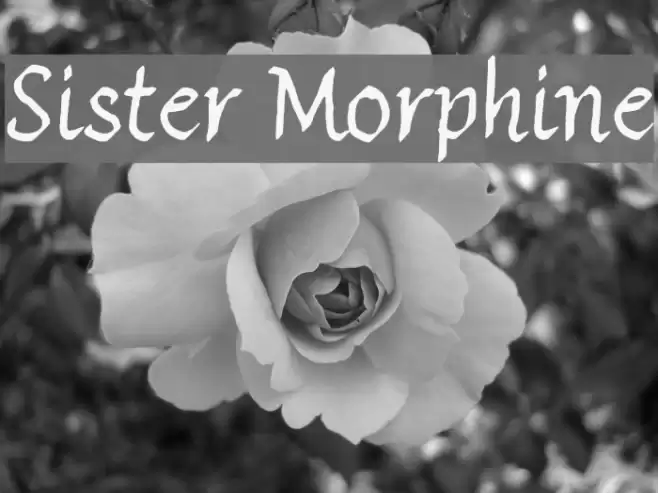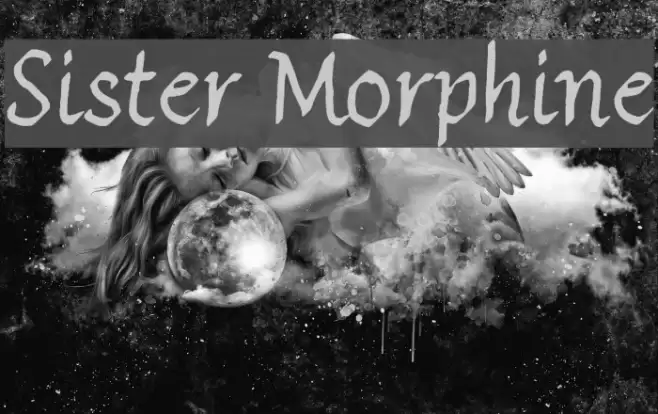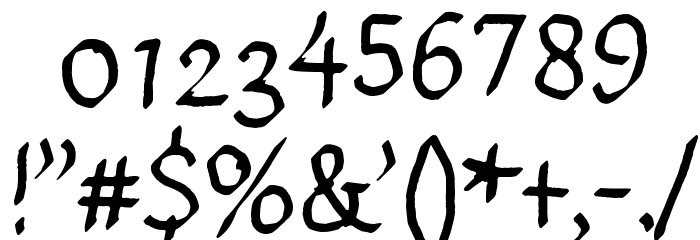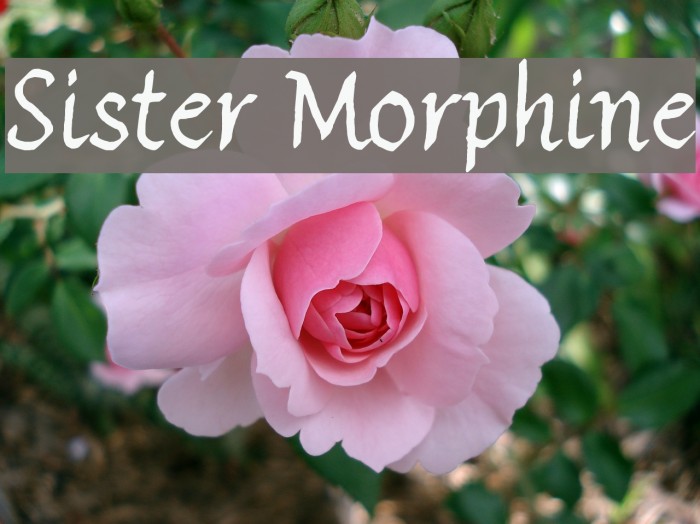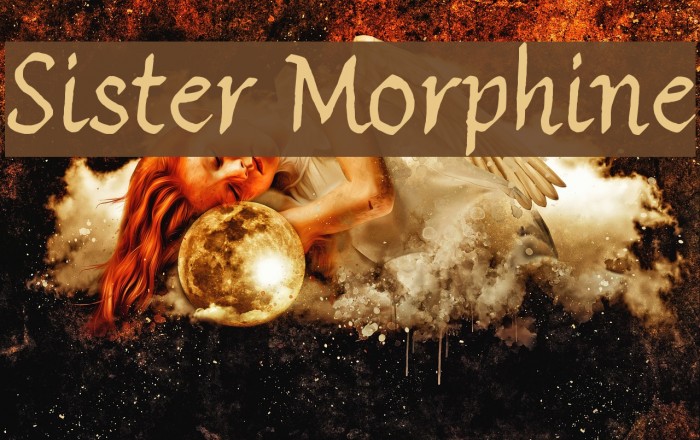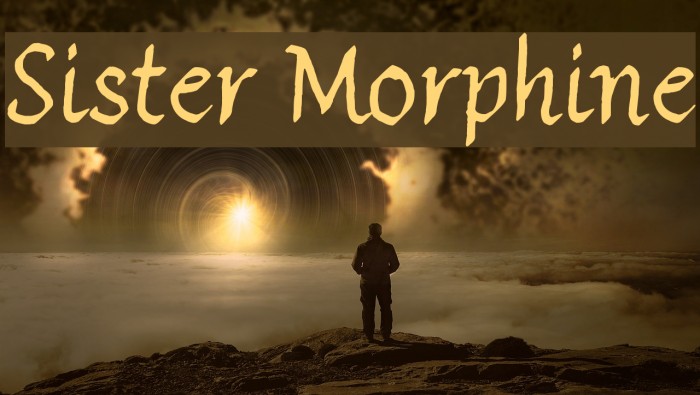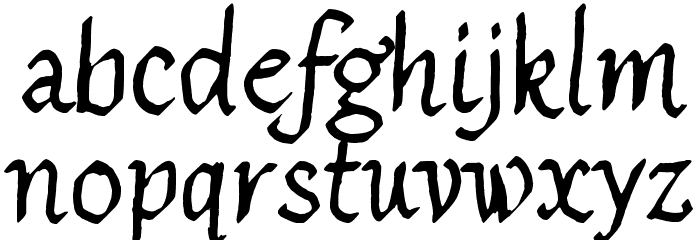
Sister Morphine Font
Sister Morphine Description
This font features a distinctive, hand-drawn style with an organic and slightly irregular appearance. The characters exhibit a playful yet sophisticated flair, with varying stroke widths that add a dynamic quality to the text. The uppercase letters are bold and assertive, while the lowercase letters maintain a consistent flow, enhancing readability. Numbers and special characters are crafted with the same attention to detail, ensuring a cohesive look across all elements. The font's unique character is ideal for projects that require a touch of personality and creativity.
A hand-drawn, playful font with varying stroke widths and a dynamic appearance from Uncategorized fonts.